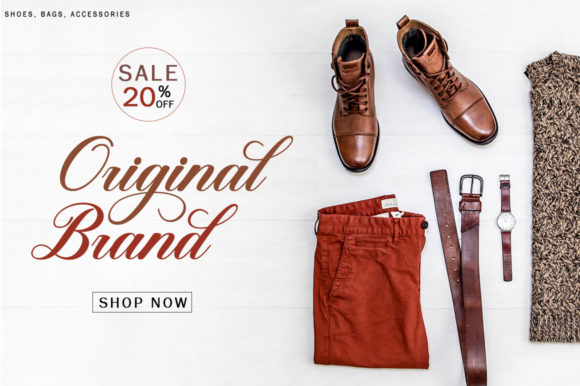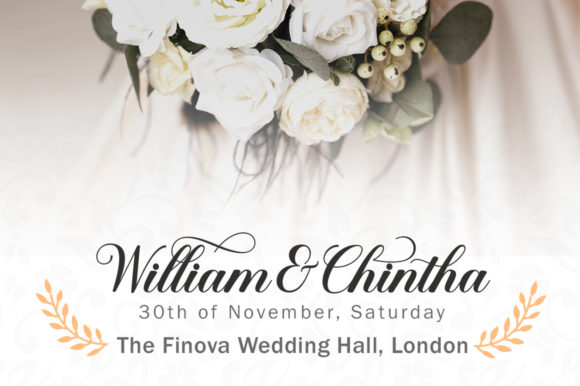
Sweet Child Font
db-ku.com - Script & Handwritten -- Sweet Child is an elegant script font with a contemporary atmosphere and impeccable form, inspired by timeless classic calligraphy. Not too thin and not too thick, balanced and varied, Sweet Child was designed to enhance the beauty of your projects.